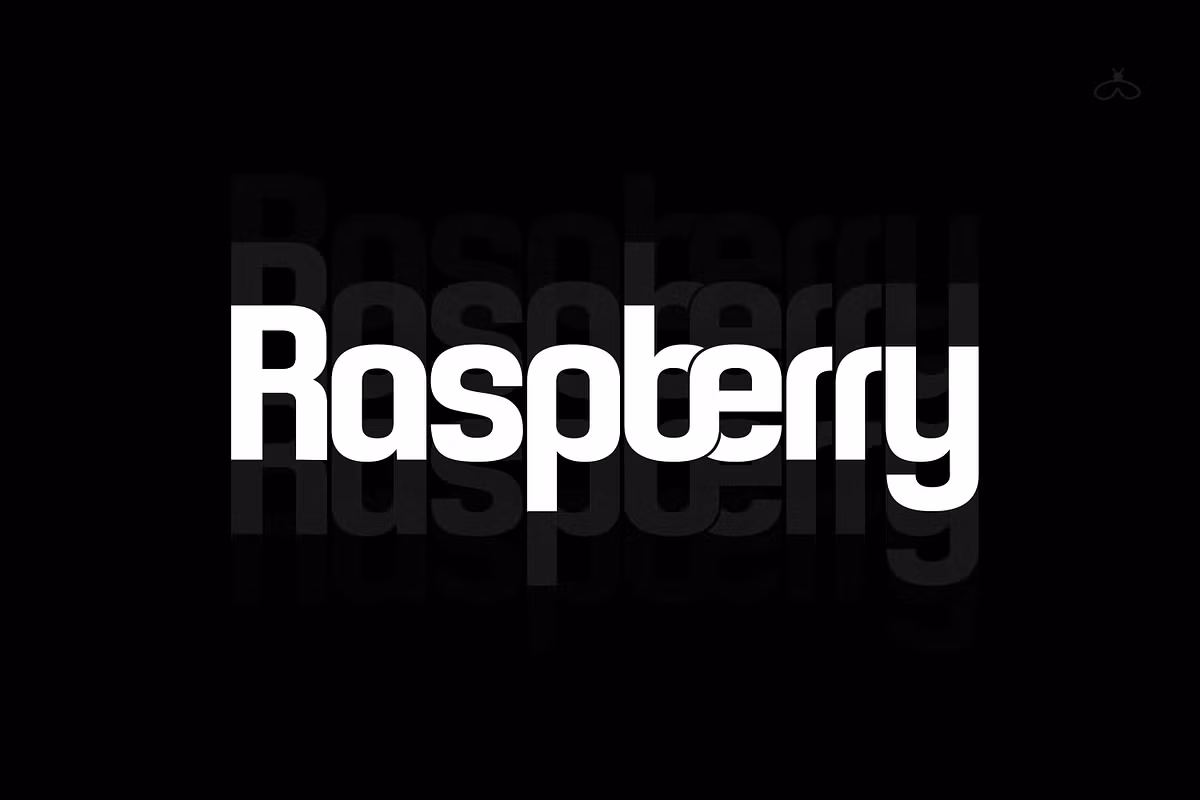
Raspberry Sturdy Typeface Free Download
Please note, you must purchase this font for commercial use. However, you can easily download Raspberry Sturdy Typeface Free Download for personal use and testing purposes. Raspberry Sturdy Typeface is a bold, modern typeface designed with strong, thick letterforms that give your designs a powerful presence. Perfect for headlines, logos, posters, and branding, this font combines strength with style, making it ideal for creative and attention-grabbing projects. Whether you're working on a product label, an impactful advertising campaign, or a modern brand identity, Raspberry Sturdy Typeface Free Download will make your typography stand out. Download Raspberry Sturdy Typeface Free Download today and explore its potential before opting for a commercial license.